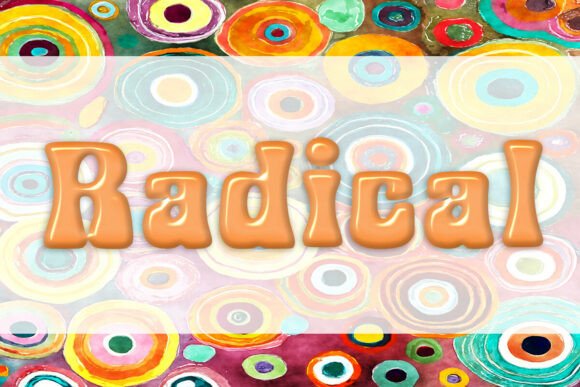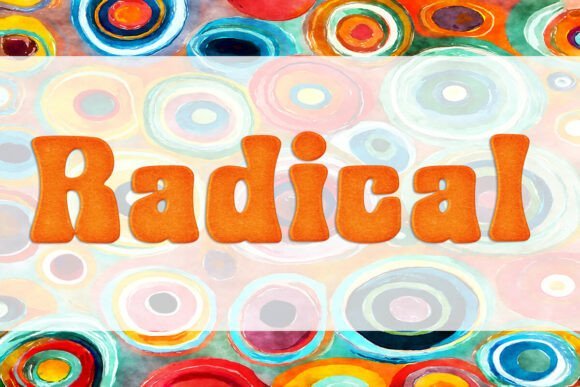
Introduction to Radical Font
Immerse your designs in a world of bold, stylized typography with the Radical Groovy font.
These fonts radiate energy and are a perfect fit for designing stylish t-shirts, vibrant stickers, standout branding, edgy magazines, and dynamic SVG files They infuse charm into greeting cards, bring excitement to Cricut projects, and add a pop of color to posters.
Key Features of Radical Font
Why Choose Radical Font?